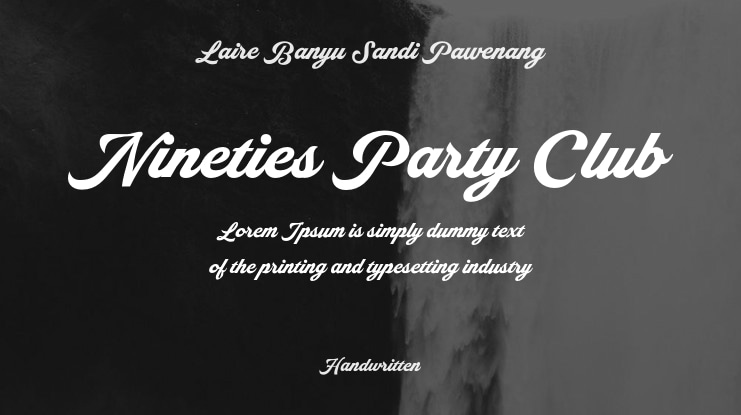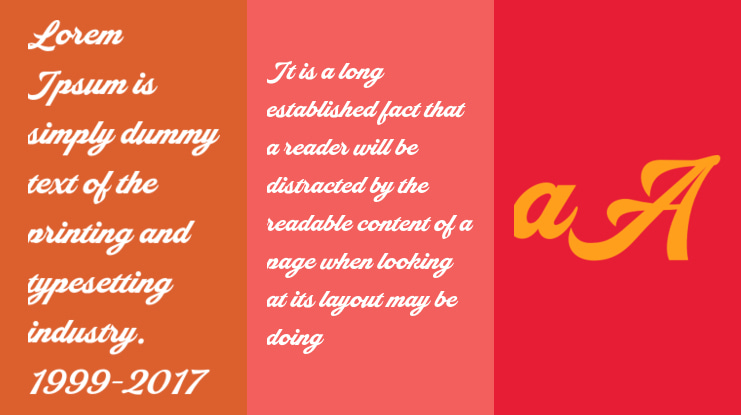
Laire Banyu Sandi Pawenang
Bring back the party spirit of the ’90s with Nineties Party Club, a bold
retro font duo that combines a striking sans serif with a thick, energetic
script. This powerful pairing delivers a fun and nostalgic vibe, perfect for
designs that demand attention with a throwback twist.